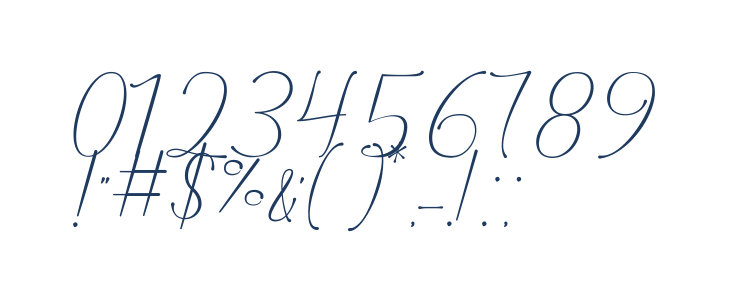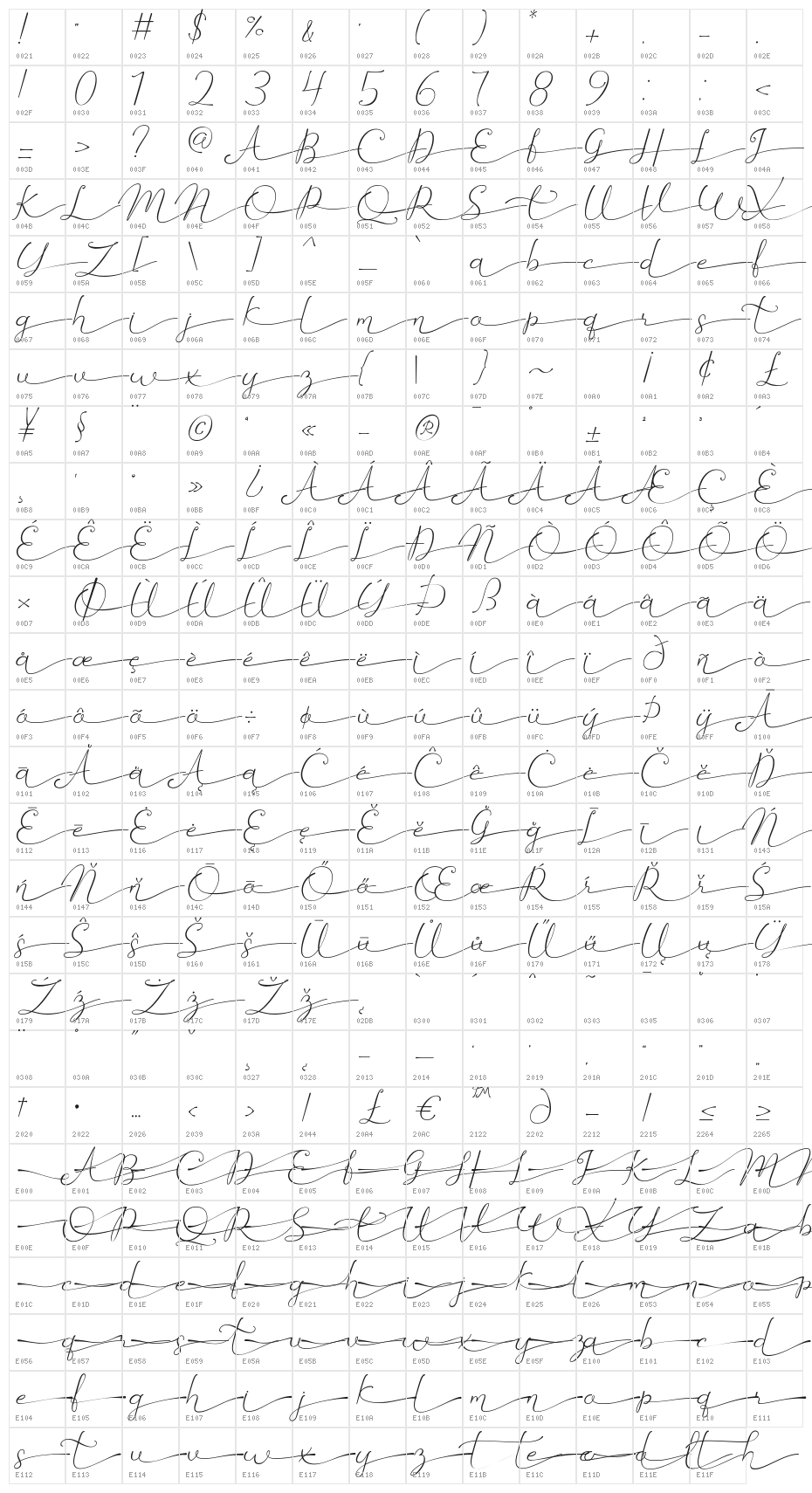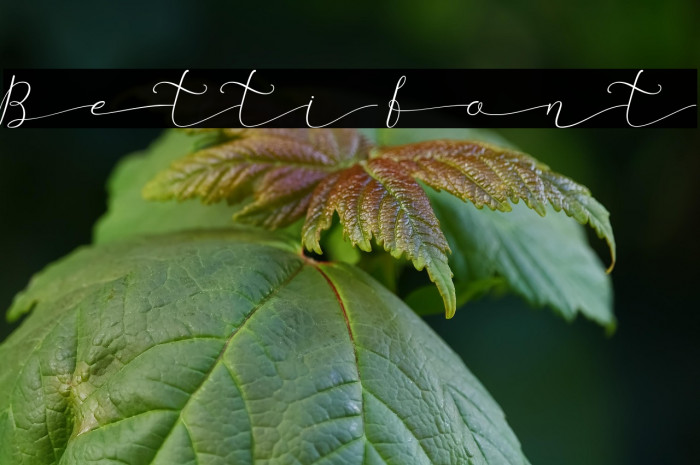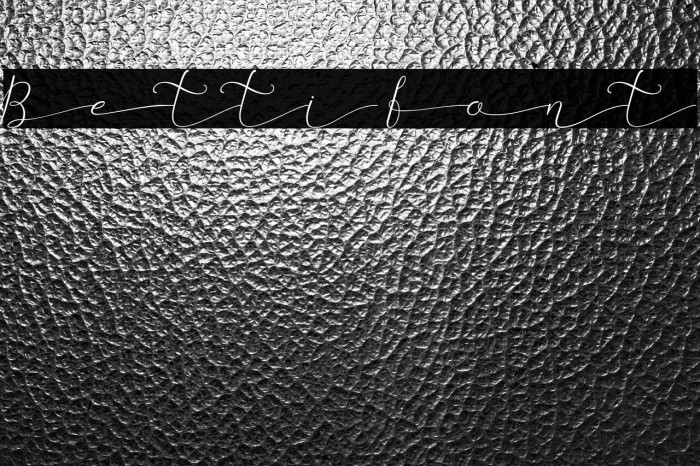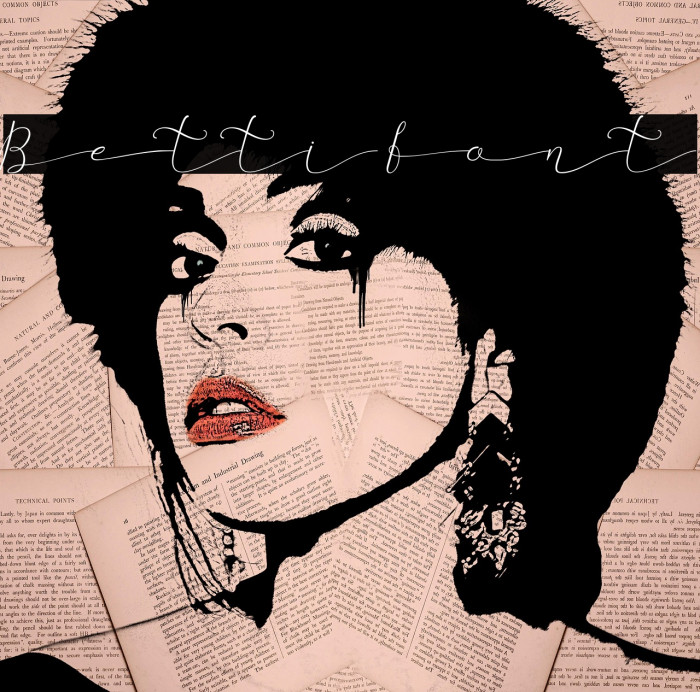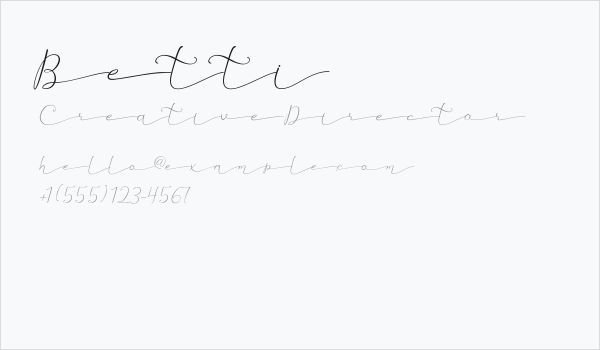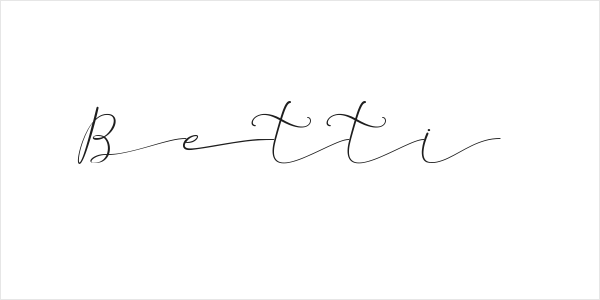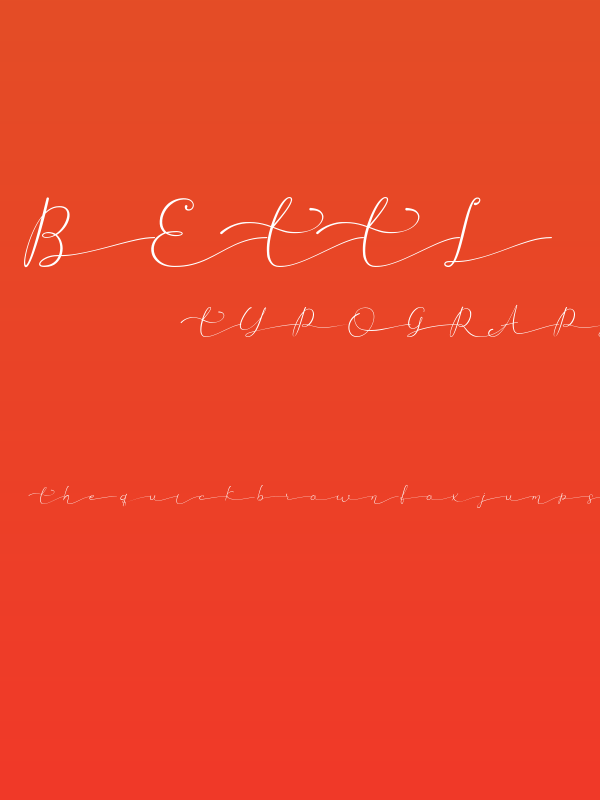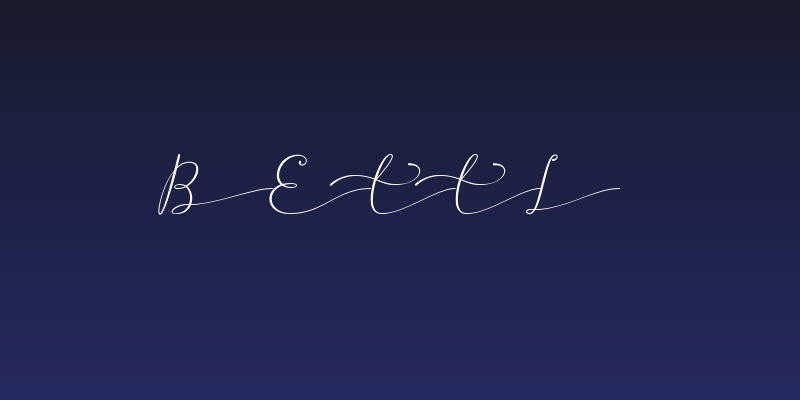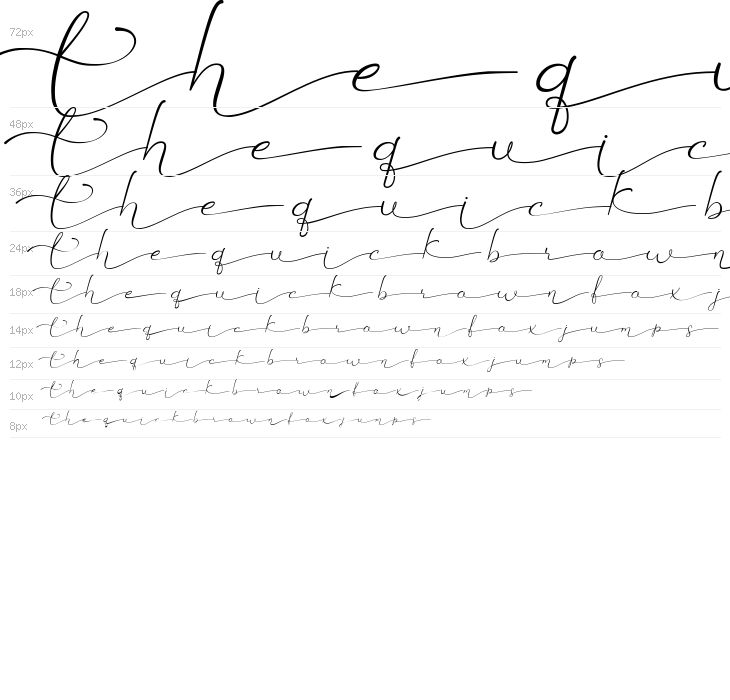
Betti Font
Betti Description
This font features a delicate and elegant script style, characterized by its flowing, interconnected letters that mimic the fluidity of cursive handwriting. The uppercase letters are slightly more pronounced, with graceful loops and curves that add a touch of sophistication. The lowercase letters maintain a consistent height, creating a harmonious and balanced appearance. The numerals are slender and maintain the same elegant style, ensuring consistency across all characters. Special characters are seamlessly integrated, maintaining the font's overall aesthetic. This font's thin strokes and gentle curves make it ideal for projects that require a personal, handwritten touch.
| Overall Style | Elegant |
| Use Case | Logos, Invitations, Personal Branding |
| Proposed Projects | Ideal for wedding invitations, personal branding, greeting cards, and elegant stationery. |